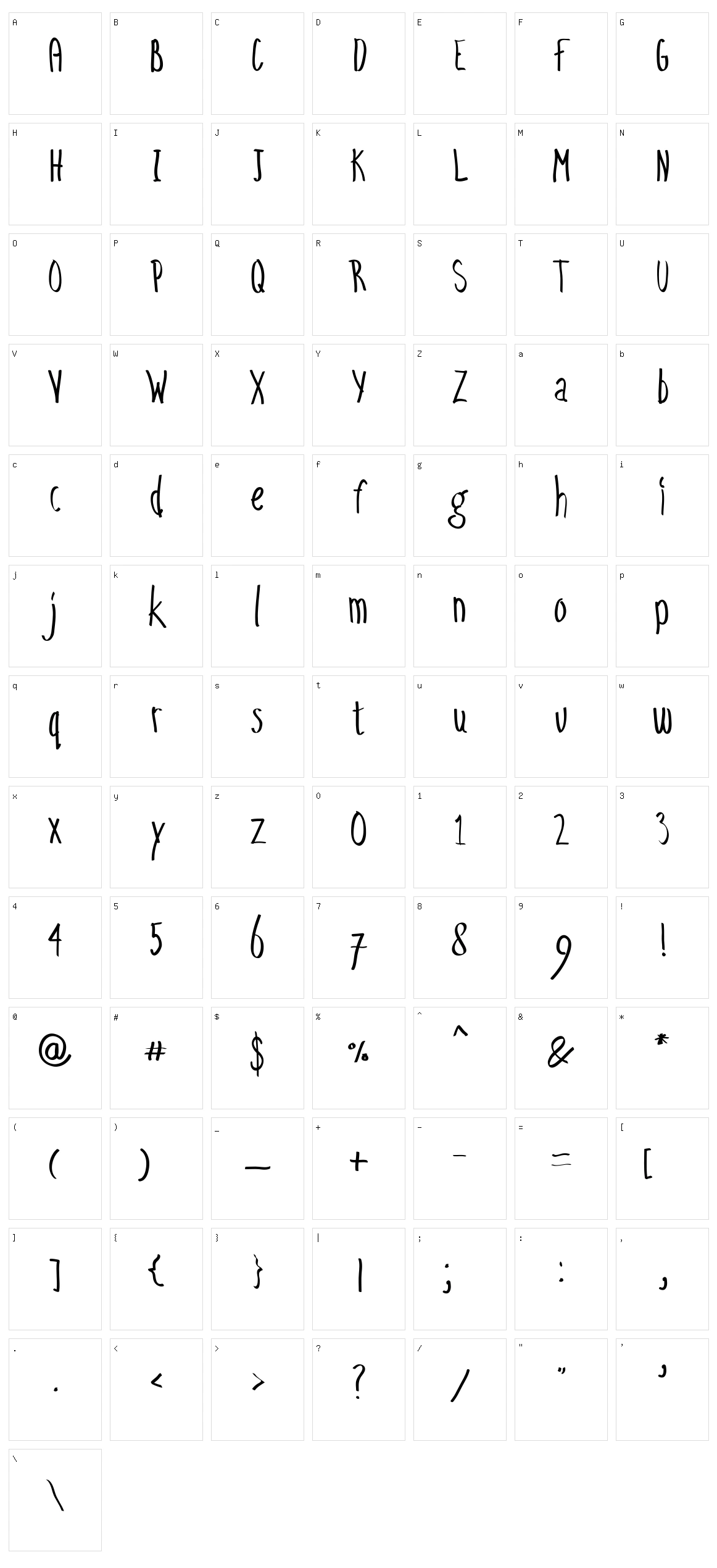
The free font Easy Going is carefully designed by zenproducts, showcasing a thoughtful balance of creativity and usability and falls under the Script font style. When you download the ZIP file, it contains only 22.83 KB of font files, making it lightweight and quick to download. Please review the license details below to understand permitted usage and distribution rights. If license information is not available, we recommend using this font for personal projects only or contacting the author directly for commercial usage permissions.